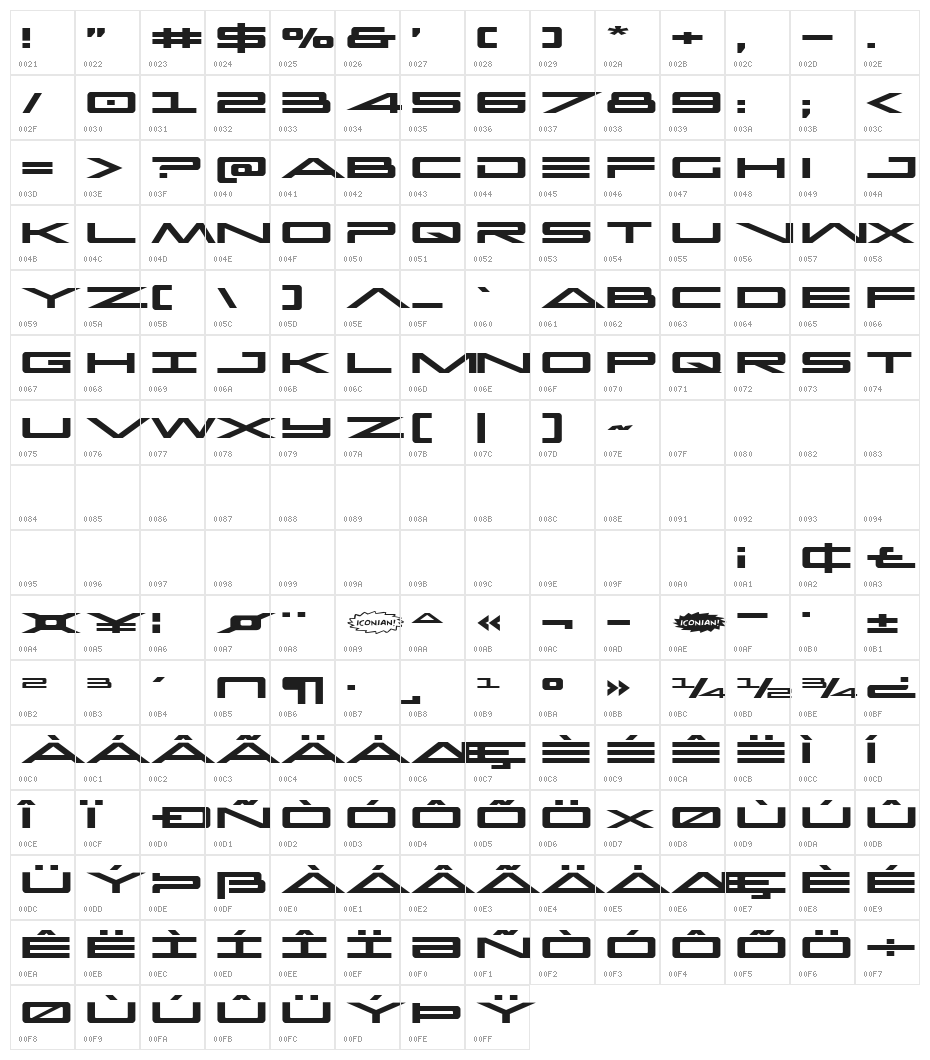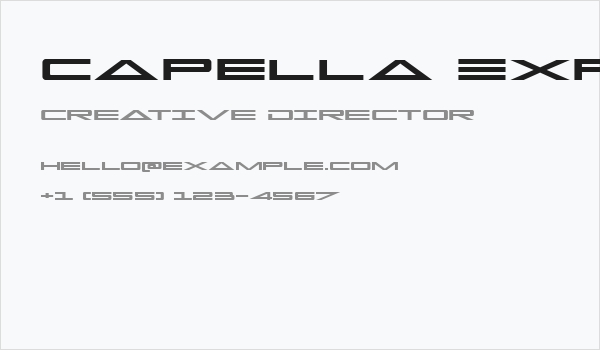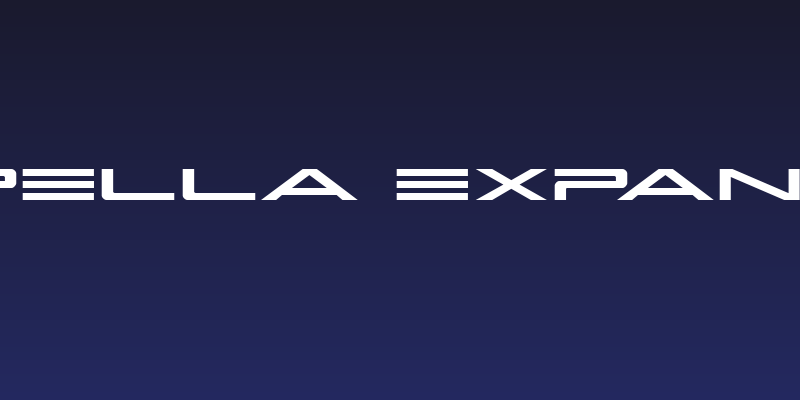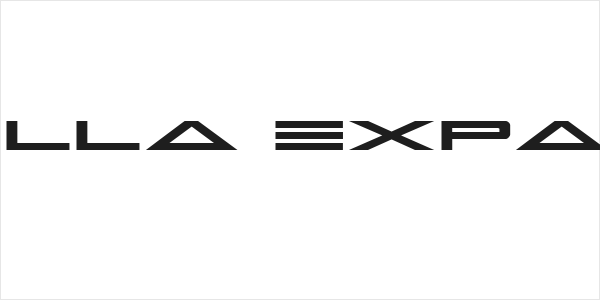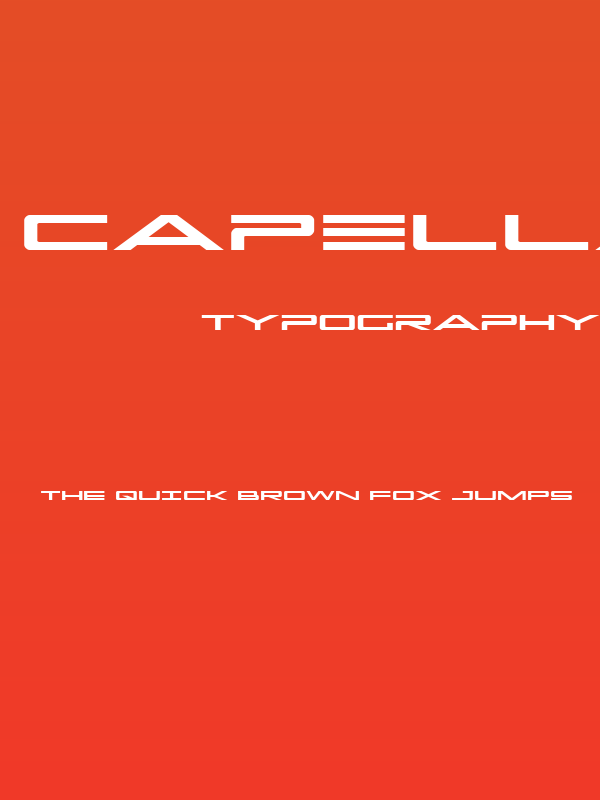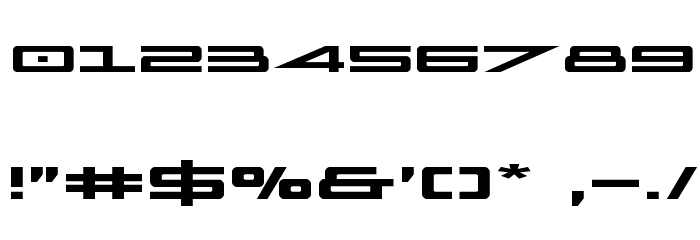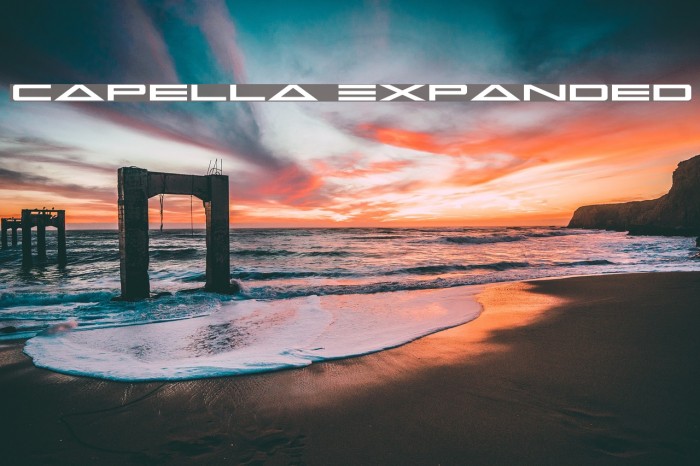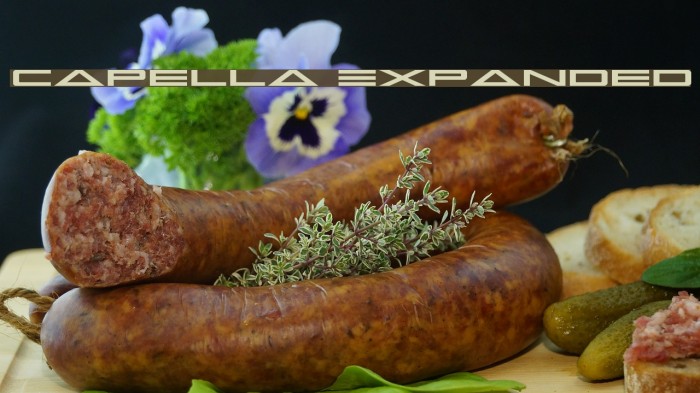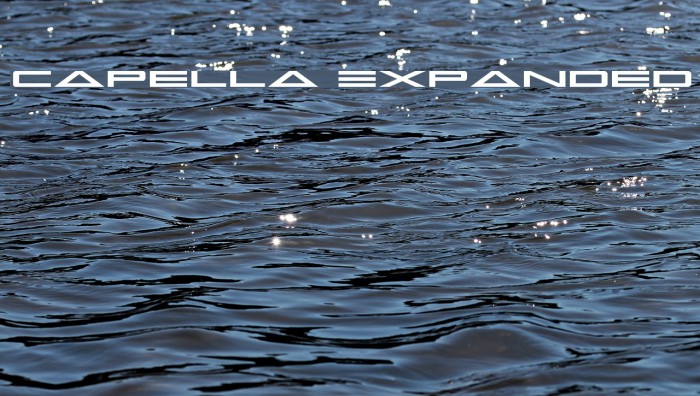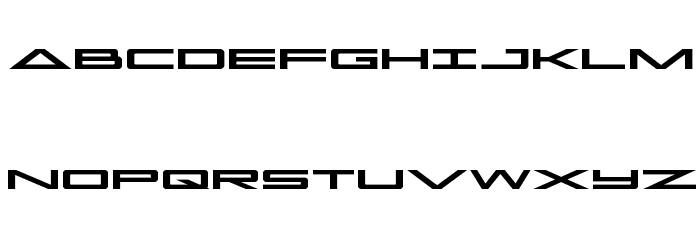
Capella Expanded Font
Capella Expanded Description
This font features a futuristic and geometric design with sharp angles and clean lines. The characters are distinctly wide, giving an expanded appearance that enhances readability and visual impact. The uppercase letters are bold and assertive, while the lowercase letters maintain a consistent style that complements the overall design. Numbers and special characters are crafted with the same attention to detail, ensuring uniformity across all glyphs. The font's modern aesthetic makes it suitable for projects that require a contemporary and tech-savvy look.